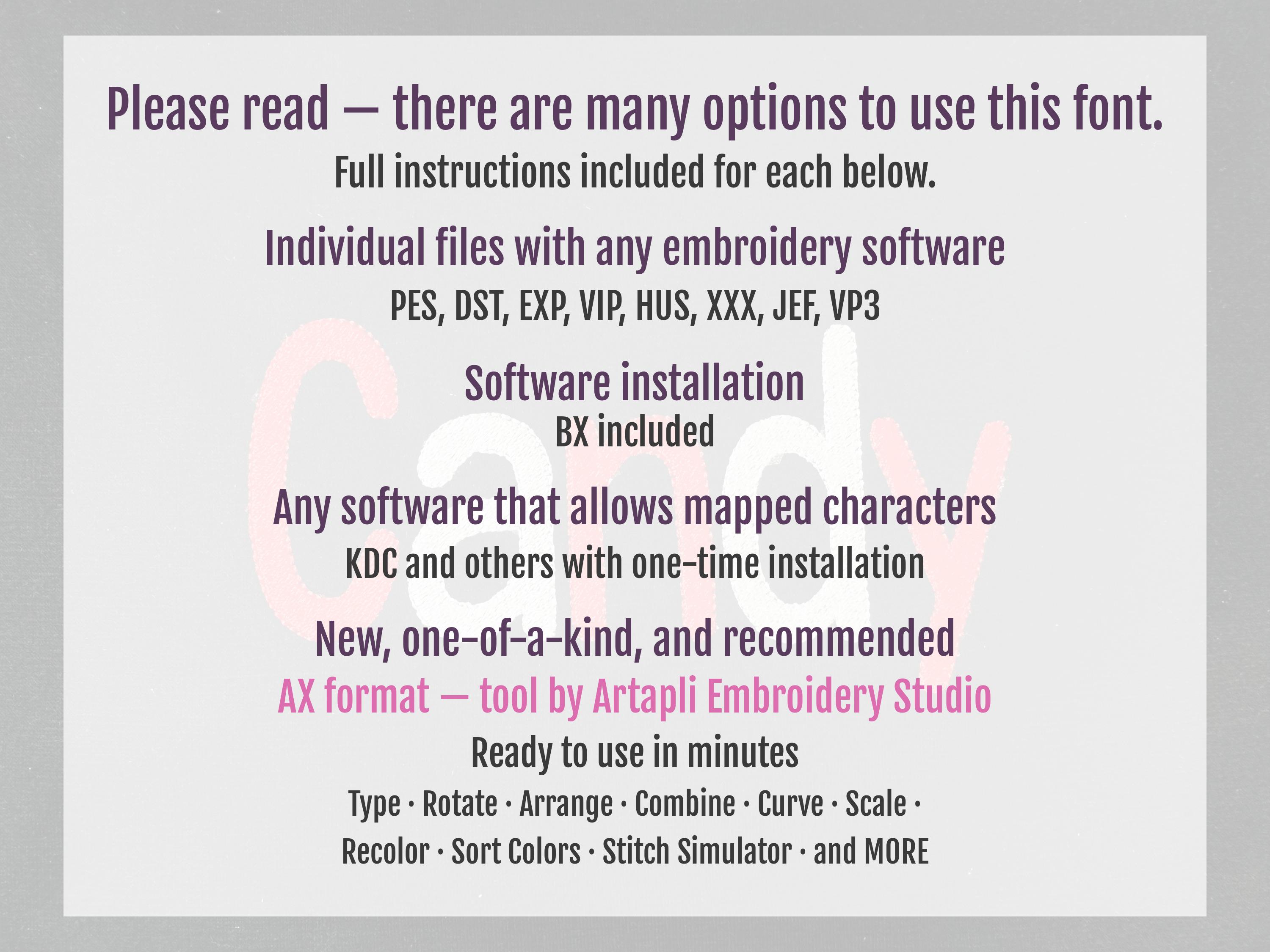
Fill stitch narrow thin Font machine embroidery designs Candy Font alphabet letters numbers sizes 1 up to 3.4 inch fill stitch and outline
Whole alphabet Aa-Zz uppercase and lowercase letters, numbers 0-9, and punctuation.